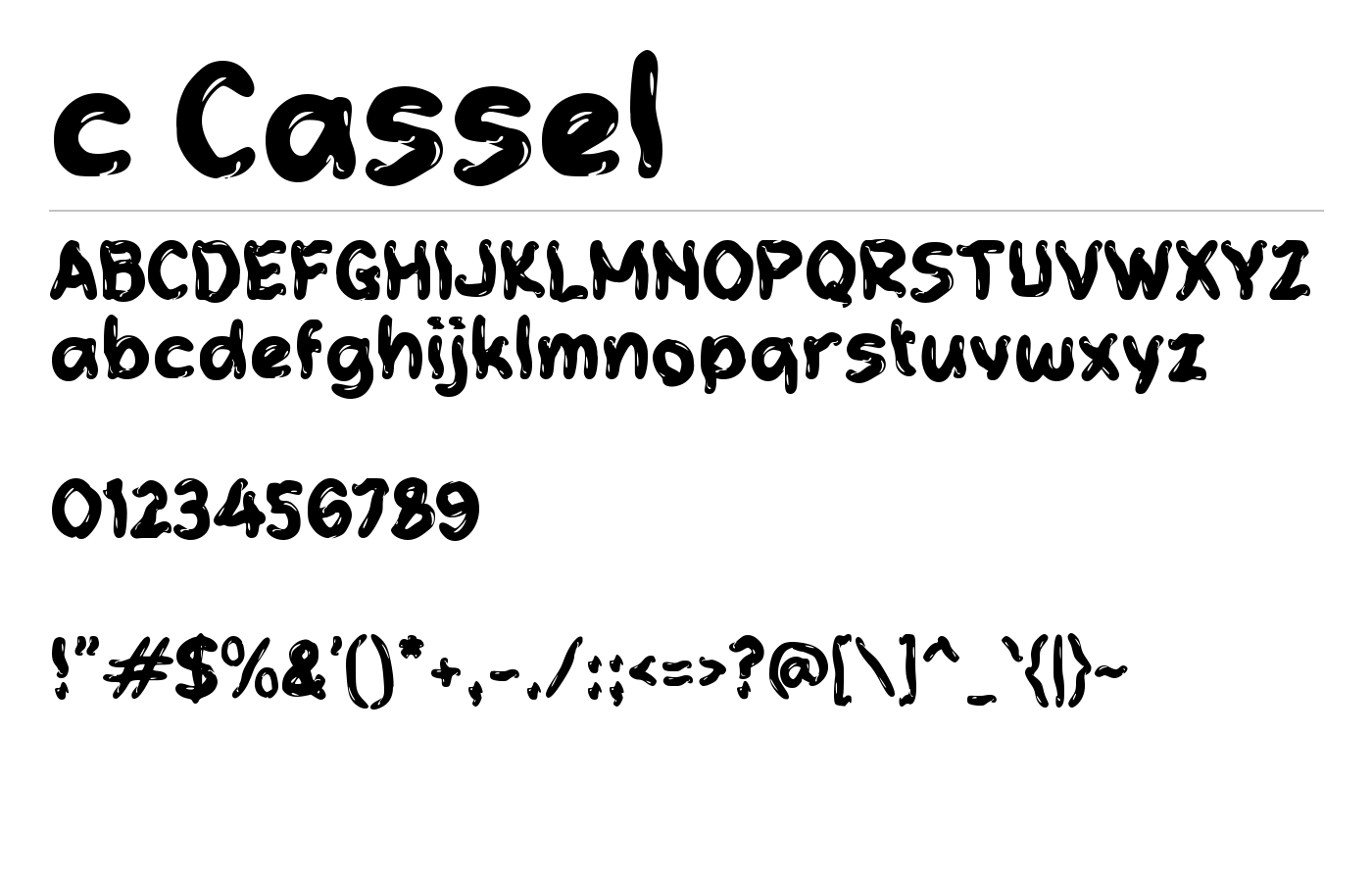
Cassel is a playful, bold handwritten-style font with a unique, slightly irregular stroke that gives it a casual and artistic feel. Its rounded, bubbly letterforms and lively texture make it perfect for fun, informal designs like children’s books, creative branding, or eye-catching posters. This font brings a friendly, energetic personality that stands out in any creative context.
c Cassel Font
About c Cassel Font